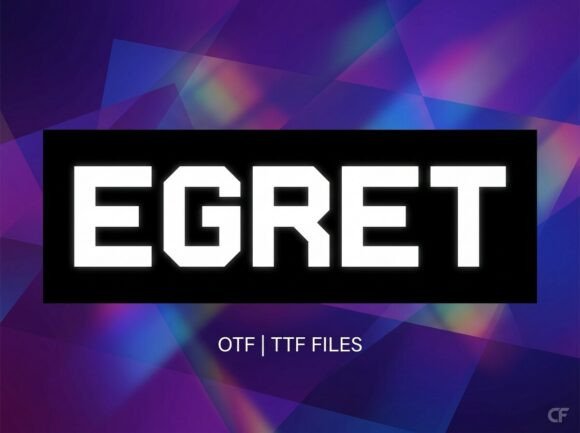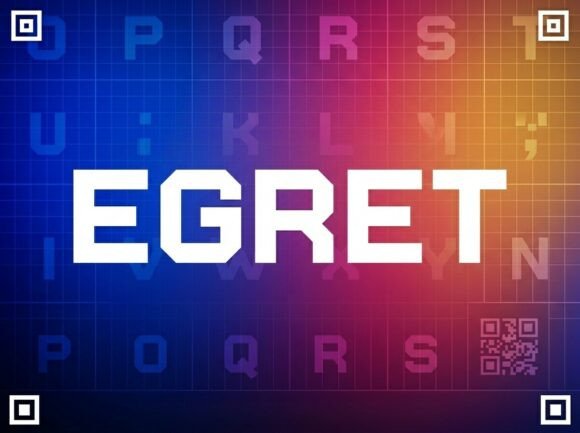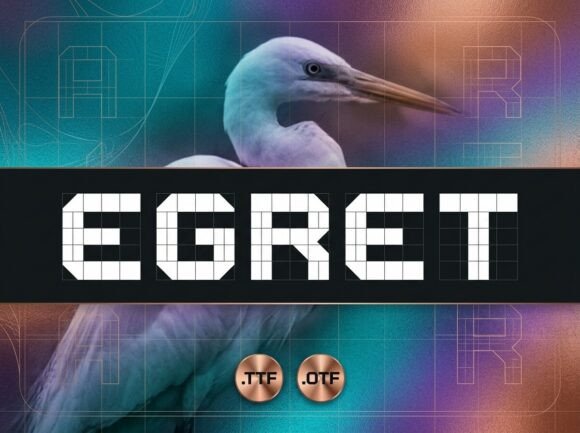
Introducing Egret Font: The Ultimate Choice for Modern Design and Engineering
In the world of typography, fonts play a crucial role in shaping the visual identity of a brand or project. For designers, architects, engineers, and crafters, finding the perfect font that embodies their vision and style can be a daunting task. However, with the emergence of Egret Font, a precision-engineered display typeface, the search is finally over. In this article, we’ll delve into the world of Egret Font, exploring its unique features, applications, and benefits.
The Concept Behind Egret Font
Egret Font is designed with a clear vision in mind – to capture the essence of a “blueprint-and-modular” soul. This font features bold, geometric letterforms meticulously built on a rhythmic square grid, creating a technical, block-based aesthetic. The result is a font that exudes a sense of precision, modernity, and innovation.
Key Features of Egret Font
Egret Font boasts several key features that make it an attractive choice for designers and crafters:
- Massive Structural Weight: Egret Font has a substantial structural weight that gives it a commanding presence, making it perfect for high-impact applications.
- Sharp, Mathematical Balance: The font’s geometric letterforms are carefully crafted to achieve a sharp, mathematical balance, creating a sense of harmony and stability.
- Geometric Letterforms: Egret Font’s letterforms are built on a rhythmic square grid, giving them a bold, geometric appearance that’s both modern and technical.
Applications of Egret Font
Egret Font is an incredibly versatile font that can be used in a variety of applications, including:
- Independent Architecture Branding: Egret Font’s technical, block-based aesthetic makes it an ideal choice for architecture firms looking to create a strong visual identity.
- Urban Development Logos: The font’s bold, geometric letterforms are perfect for urban development projects, conveying a sense of modernity and progress.
- High-Tech Engineering Firms: Egret Font’s precision-engineered design makes it a natural fit for high-tech engineering firms looking to convey a sense of innovation and expertise.
- High-Impact Digital-Construction Social Media Headers: The font’s massive structural weight and sharp, mathematical balance make it perfect for creating eye-catching social media headers that demand attention.
Benefits of Using Egret Font
Egret Font offers several benefits to designers and crafters, including:
- Unique Visual Identity: Egret Font’s distinctive design ensures that your project or brand stands out from the crowd, creating a lasting impression on your audience.
- Flexibility: The font’s versatility makes it suitable for a wide range of applications, from architecture and engineering to digital construction and social media.
- Professionalism: Egret Font’s precision-engineered design conveys a sense of professionalism and expertise, making it an excellent choice for businesses and organizations looking to establish a strong visual identity.
| Font Name | Egret Font |
| Author | clipartguru |
Egret Font is a game-changing display typeface that’s poised to revolutionize the world of design and engineering. With its bold, geometric letterforms, massive structural weight, and sharp, mathematical balance, Egret Font is the premier choice for designers and crafters looking to create a lasting impression. Whether you’re working on an independent architecture project, urban development initiative, high-tech engineering firm, or high-impact digital-construction social media campaign, Egret Font is the perfect tool to help you construct your vision and bring it to life.